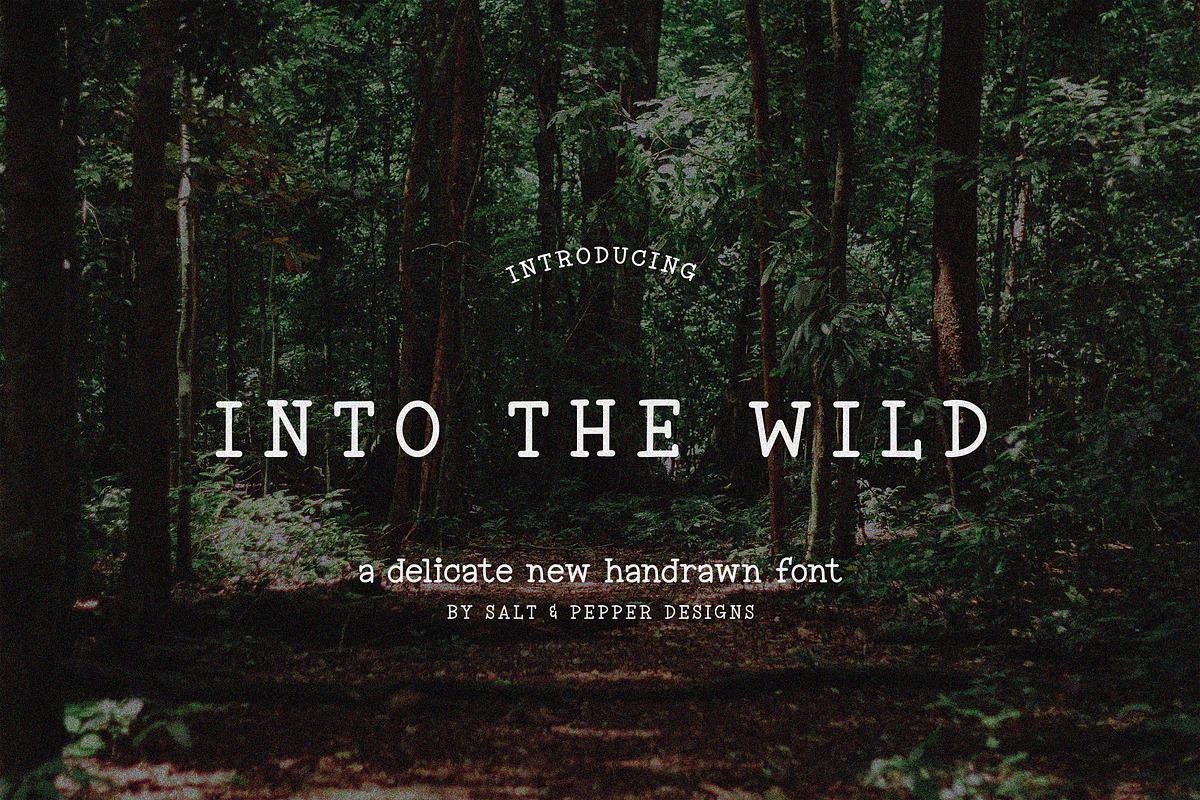
Into the Wild Font Free Download is a rugged and adventurous typeface designed to capture the spirit of the great outdoors. With its earthy, textured strokes and bold letterforms, this font is perfect for outdoor adventure branding, hiking or camping event posters, wilderness-themed projects, and travel-related designs.
Into the Wild Font Free Download combines a sense of raw nature with a clean and modern aesthetic, making it ideal for designs that evoke exploration, freedom, and the beauty of the wild. Whether you're creating a logo for an outdoor company, a travel magazine, or a nature documentary, this font adds a touch of the untamed to your project.